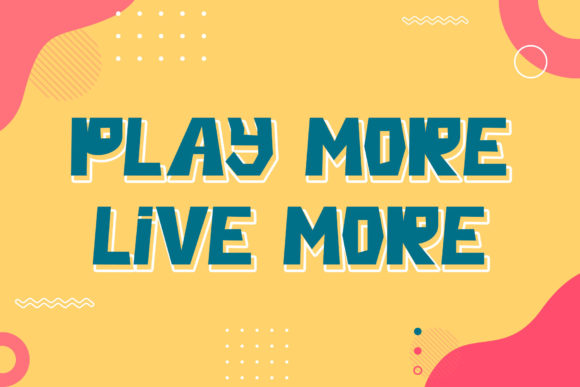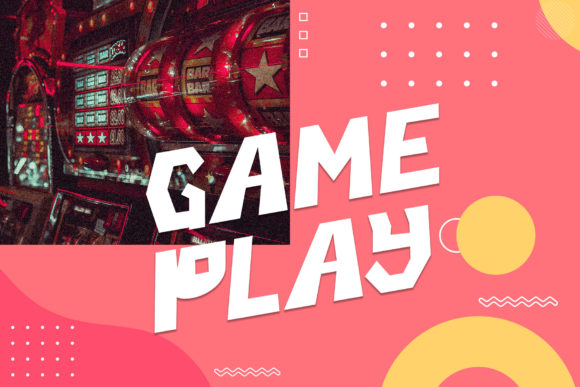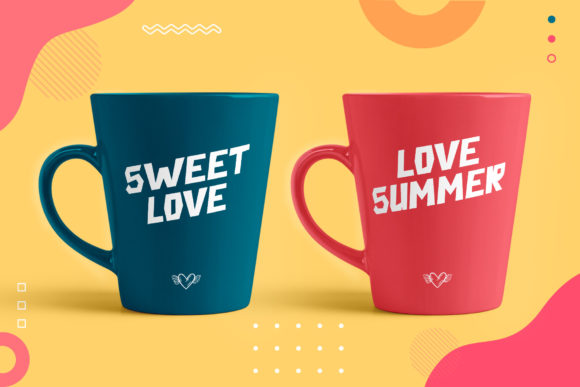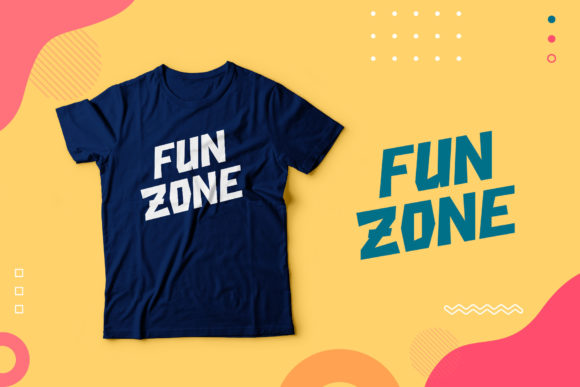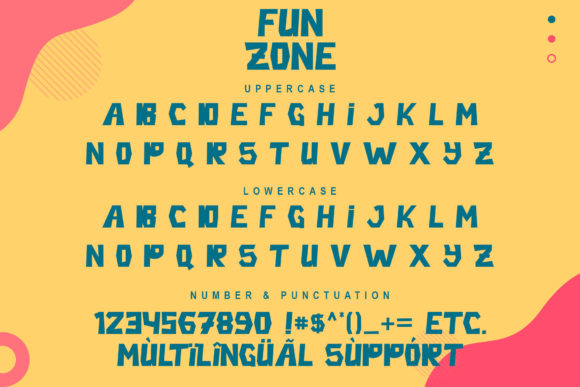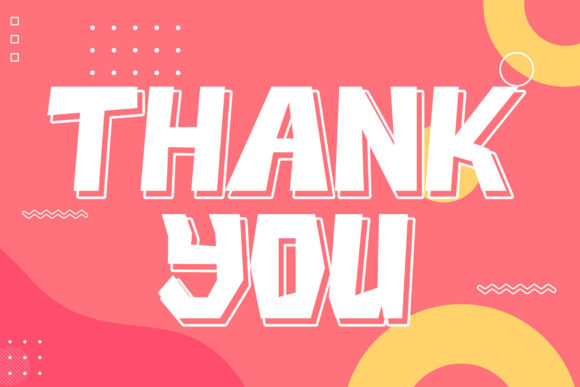
Introducing Fun Zone Font: The Ultimate Playful Display Font
Are you tired of using the same old boring fonts for your designs? Look no further! Fun Zone Font is here to add a splash of fun and playfulness to your projects. This modern and chunky display font is perfect for designers and crafters who want to make a statement with their typography.
What Makes Fun Zone Font So Special?
Fun Zone Font is a unique and eye-catching typeface that is sure to grab attention. Its chunky characters and modern design make it perfect for a wide range of applications, from book titles and magazine covers to children’s notebooks and apparel designs. The font’s playful and energetic vibe is sure to appeal to designers and crafters who want to add a touch of whimsy to their work.
Fun Zone Font is incredibly versatile and can be used for a wide range of projects, including:
• Book Titles: Add a touch of fun and playfulness to your book titles with Fun Zone Font. It’s perfect for children’s books, cookbooks, and any other type of book that needs a bit of personality.
• Magazine Covers: Make your magazine cover stand out from the crowd with Fun Zone Font. Its modern and chunky design is sure to grab attention and draw readers in.
• Children’s Notebooks: Fun Zone Font is perfect for children’s notebooks, journals, and activity books. Its playful and energetic vibe is sure to appeal to kids and make their notebooks stand out.
• Apparel Designs: Add a touch of fun and personality to your apparel designs with Fun Zone Font. It’s perfect for t-shirts, hoodies, and any other type of clothing that needs a bit of flair.
• Games: Fun Zone Font is also perfect for game designs, including posters, flyers, and in-game text.
Why Choose Fun Zone Font?
There are many reasons why designers and crafters should choose Fun Zone Font for their projects. Here are just a few:
• Unique and Eye-Catching: Fun Zone Font is a unique and eye-catching typeface that is sure to grab attention.
• Modern and Chunky: The font’s modern and chunky design makes it perfect for a wide range of applications.
• Playful and Energetic: Fun Zone Font has a playful and energetic vibe that is sure to appeal to designers and crafters who want to add a touch of whimsy to their work.
• Versatile: The font is incredibly versatile and can be used for a wide range of projects.
Tips for Using Fun Zone Font
Here are a few tips for using Fun Zone Font in your designs:
• Use it as a Header Font: Fun Zone Font is perfect for use as a header font. Its chunky characters and modern design make it perfect for grabbing attention and drawing readers in.
• Pair it with a Simple Font: For body text, pair Fun Zone Font with a simple and easy-to-read font. This will create a nice contrast and make your design stand out.
• Experiment with Colors: Fun Zone Font looks great in a variety of colors. Experiment with different colors and combinations to find the one that works best for your design.
Fun Zone Font is a fun and playful display font that is perfect for designers and crafters who want to add a touch of whimsy to their work. Its modern and chunky characters make it perfect for a wide range of applications, from book titles and magazine covers to children’s notebooks and apparel designs. With its unique and eye-catching design, Fun Zone Font is sure to grab attention and make your designs stand out.